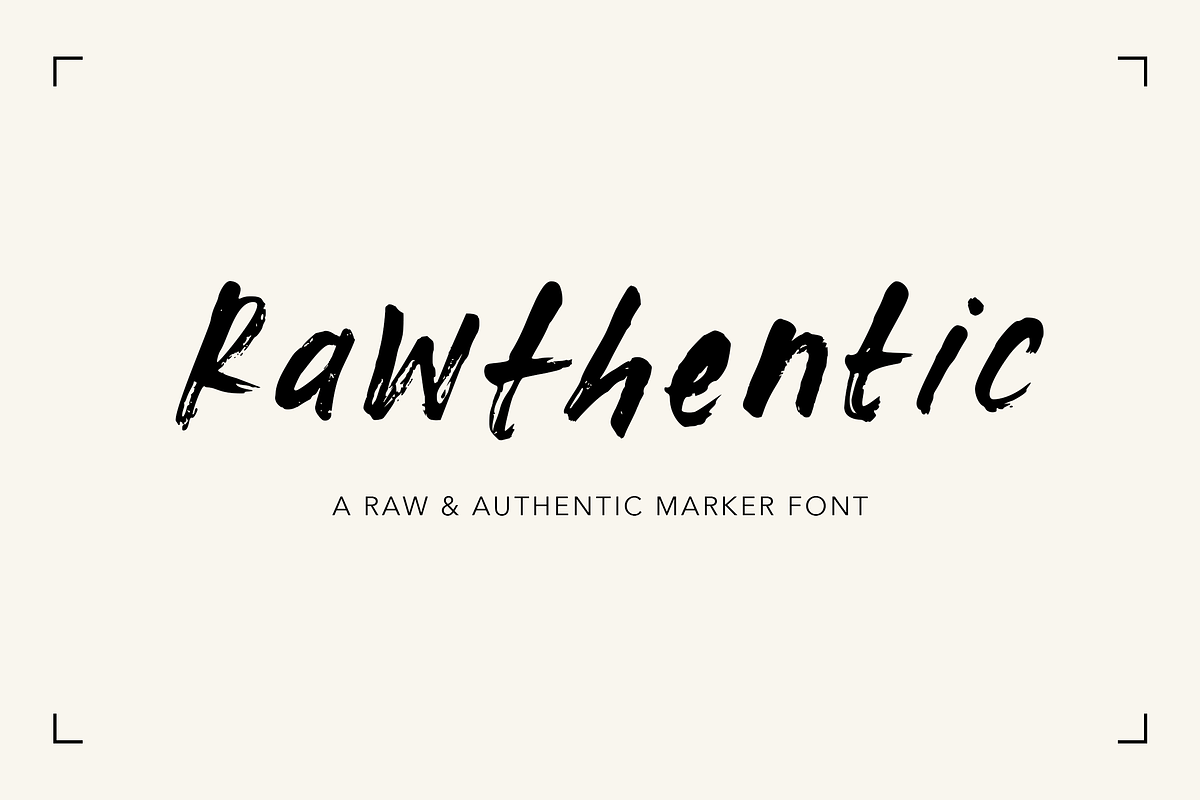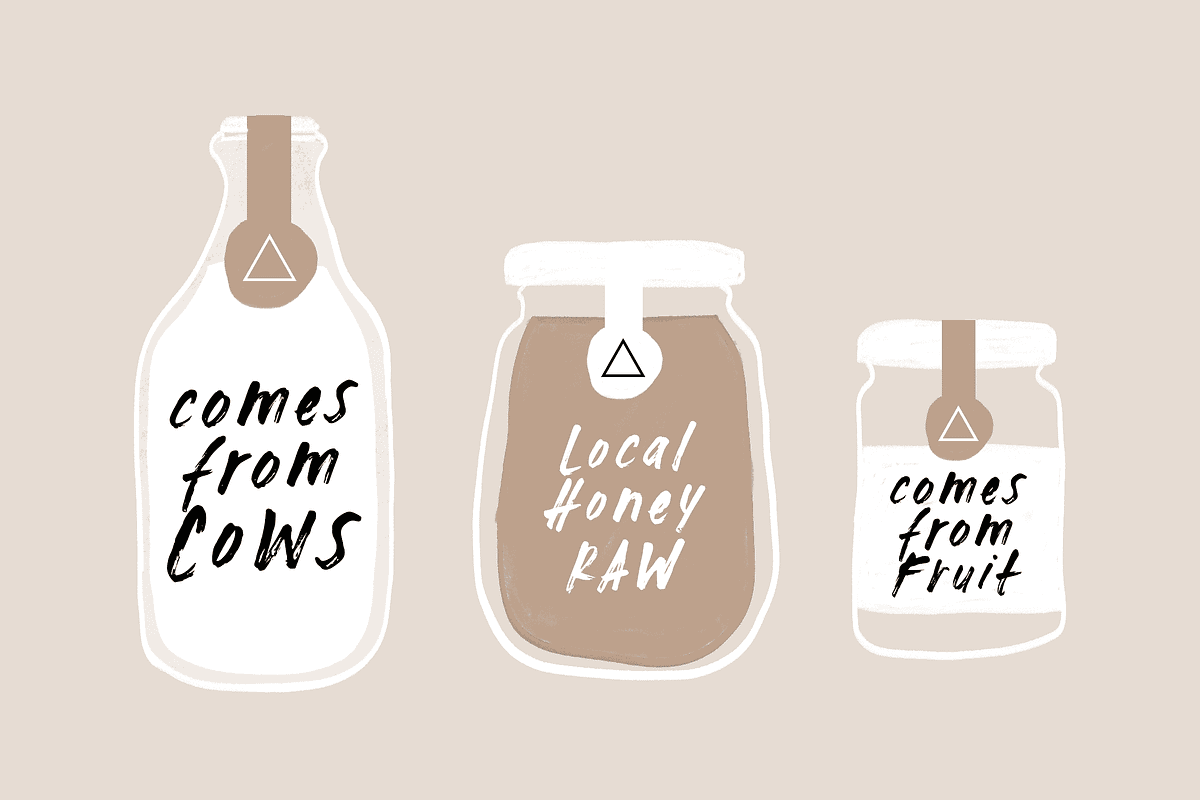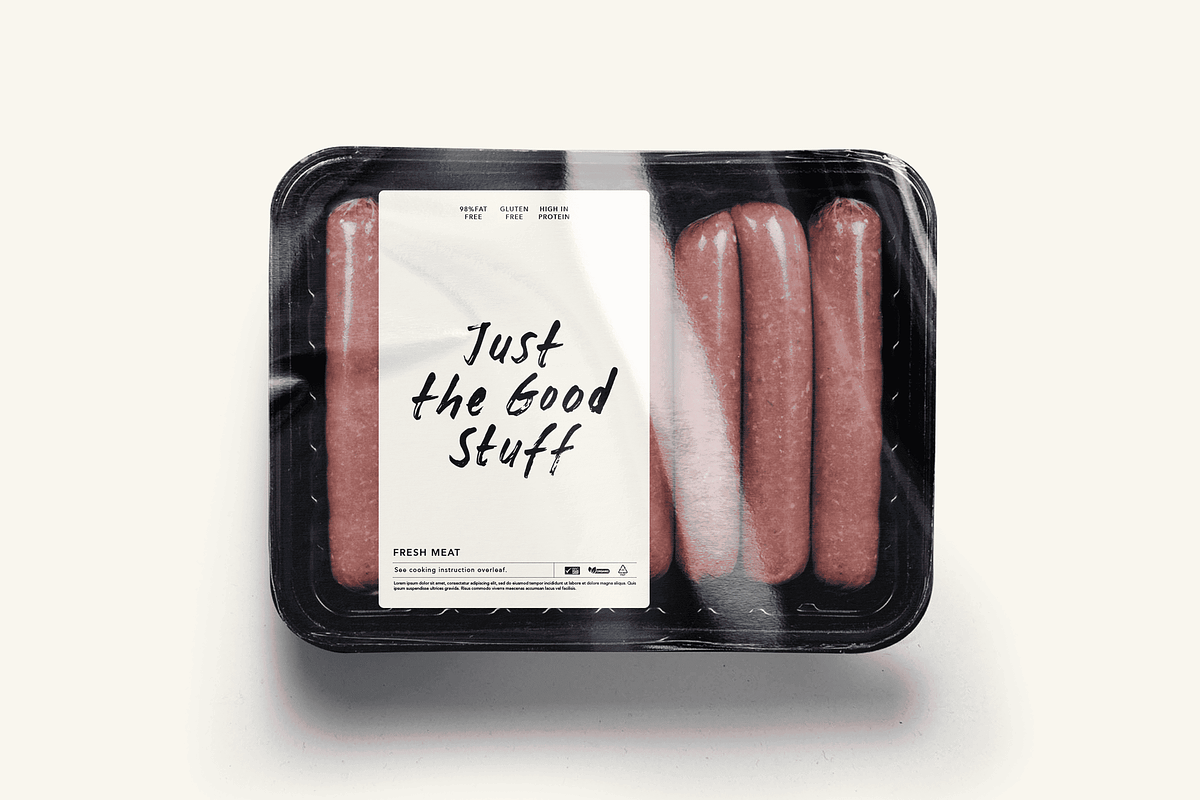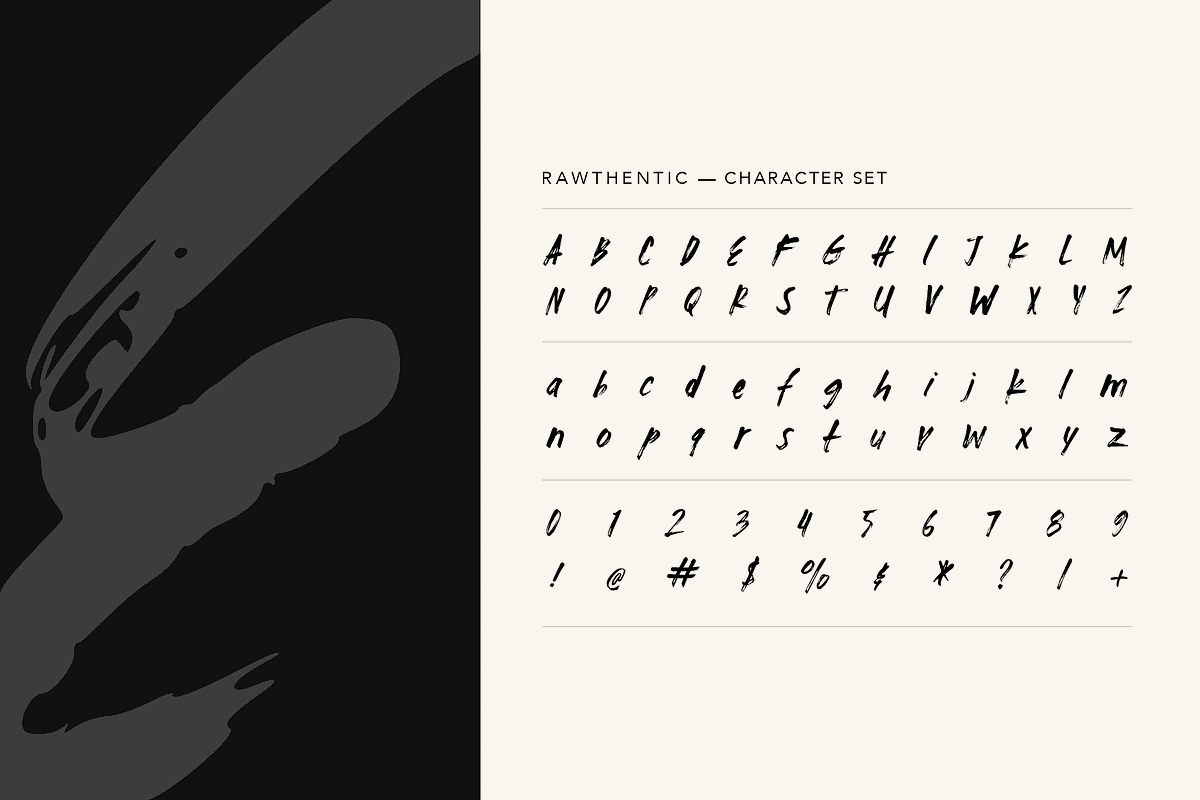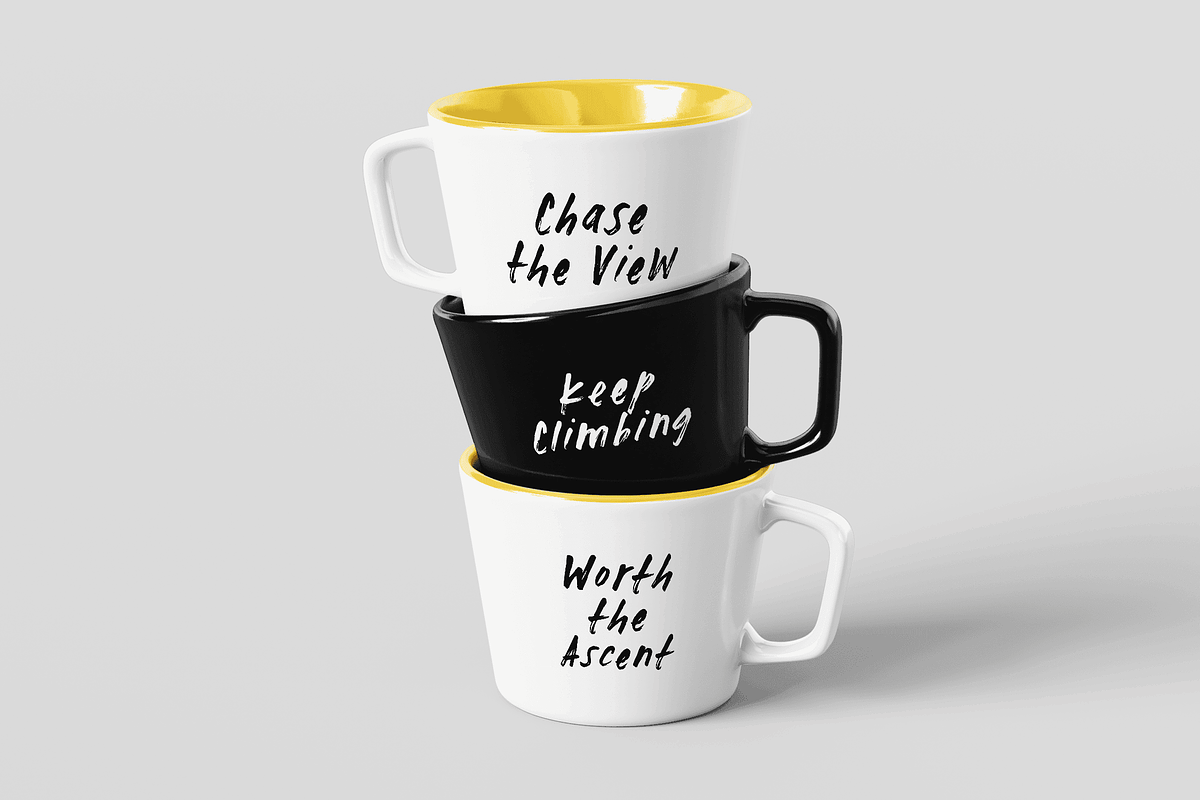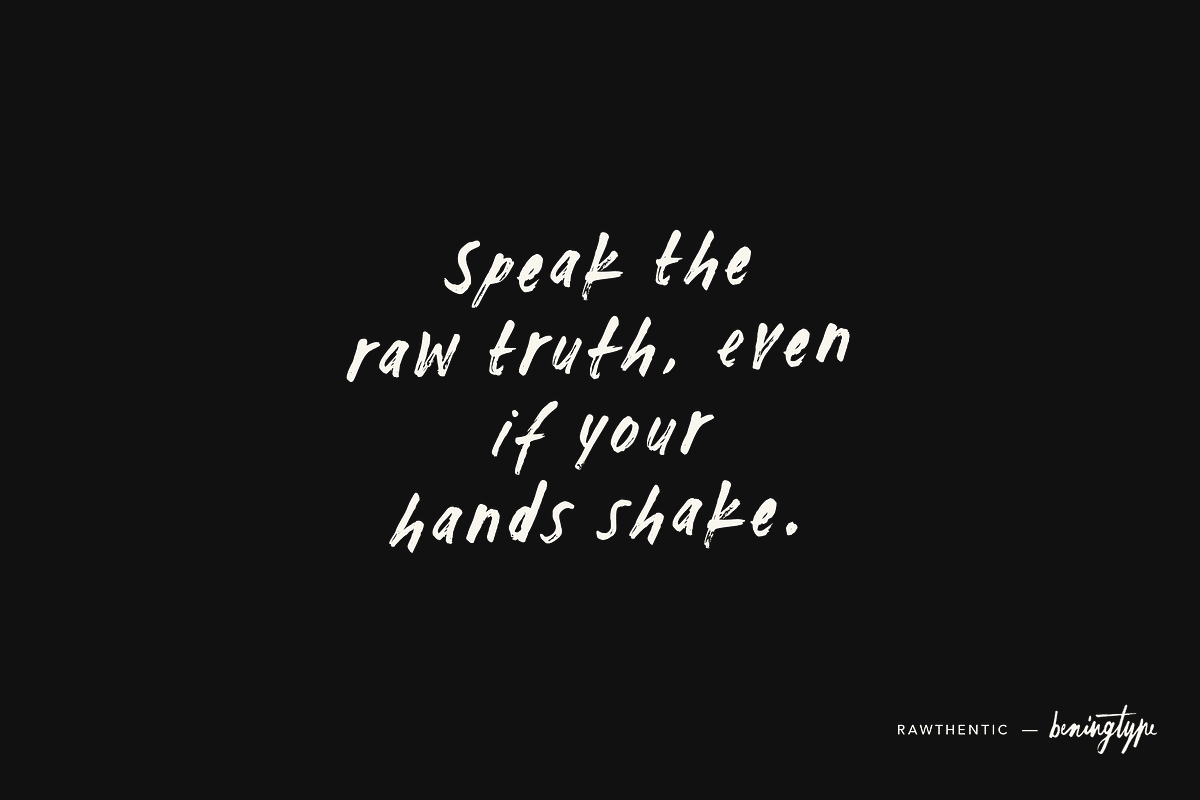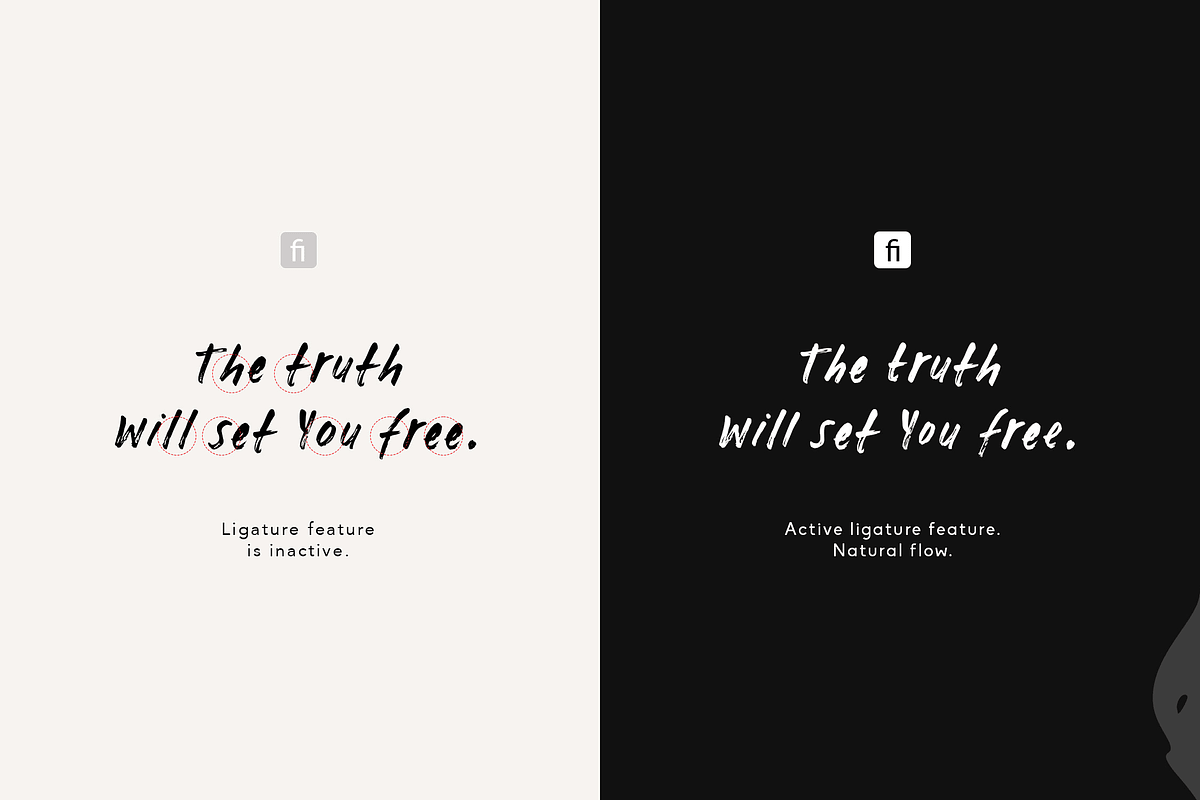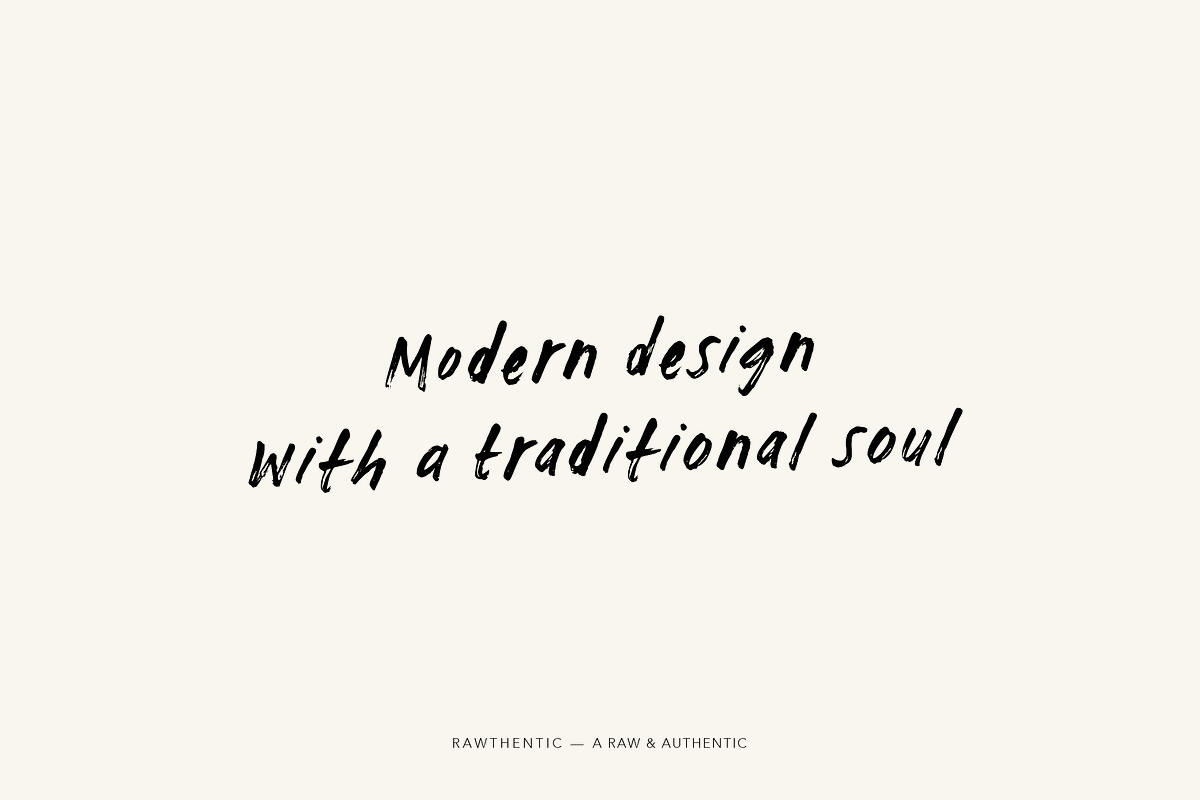
Rawthentic – Textured Marker Font
Rawthentic – A Raw & Authentic Marker Font
In a world of pixel-perfect and highly digital designs, we often crave something real, honest, and human. Meet Rawthentic, a raw marker font born from genuine, unedited hand strokes.
More than just a collection of letters, Rawthentic was created to deliver a profoundly strong personal touch to your projects. With its natural slant and authentic textures, every curve and perfectly raw imperfection is carefully crafted so that your message isn't just read—it is remembered and deeply felt by your audience. It speaks the raw truth with a modern energy and a traditional soul.
Organic Branding & Packaging: Ideal for natural product labels, artisan foods, or local brands that want to highlight a handcrafted, authentic feel.
Merchandise & Apparel: Perfect for mugs, t-shirts, or tote bags that demand bold, motivational typography.
Quotes & Social Media: Create emotional, honest, and character-driven quote designs that truly connect with your audience.
Logos & Editorial: Add a dynamic, energetic touch to lifestyle logos, posters, or magazine covers.
Custom Ligatures (e.g., 'fi') to maintain a natural, seamless handwritten flow
Speak the truth through your design, because an Rawthentic never fails to capture the heart.